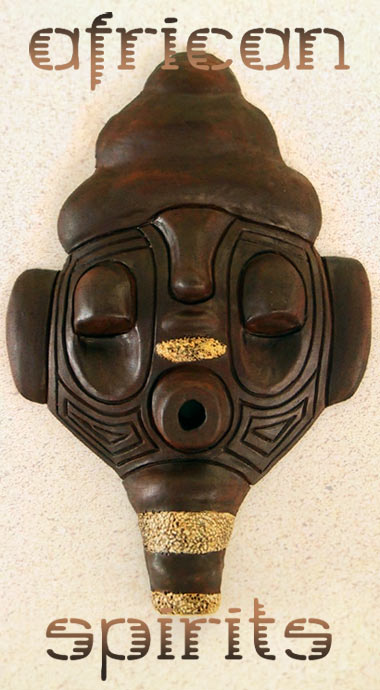
FS Vuvuzela
by kix
OK. Here's "VUVUZELA" A typeface inspired by the continent of africa, but mainly by the WorldCup of soccer 2010 in South Africa! To catch on of the strongest associations for me relating to africa, i chose black and white stripes, maybe to remind of zebras or other animal patterns. But the effect also stands for the "swoosh" of a ball flyin by, for just the the "sporty" feel i wanted it to have. Enjoy it. There's an alternative "a" on "=" cheers kix
NIIICE! How about some more characters like some spooky faces instead of the special punctuations … just an idea.
Awesome work! Really well done. Great style!
Unique and usable. African and stencil. Excellent work.
The latest Kix masterpiece. Excellent work, kix! I don't know how you do this stuff!
184591734658/10 as usual.
Wow! I counted the height... it's 57 pixels high! (or something along those lines)
Yes, I cloned it. Don't ask how.
@xenophilius. Cloned? That's a bug. I've disabled all cloning until that's fixed. I see you deleted the clone. Thanks!
A superb, great font. Excellent job this one (which I'm jealous, of course). Congrats.
Wauw! What a simple yet dramatic effect. 10/10 + fave.
Very nice kix...cool sample too.
Of causeI'll spend some of it for working on this. And do some of those spooky masks, cause it's just a friggin good idea :)
Brilliant in its simplicity, smoothness & appearance.
Uppercase finished.
Brilliant. W, N & M are triumphs.
Do you think the thicker side of D & B should be switched, to be like the C,G,O,P,R etc ?
Congratulations! FontStruct Staff have deemed your FontStruction worthy of special mention. “Vuvuzela” is now a Top Pick.
-i knew, IF someone would ask that question, it would be you :)
Naturally, i already thought about it and it's a questioncoming up within almost EVERY fontstruction i've done:
How much strictness and repetition does a/my font need?
And on the other hand: How much can a glyph be unique, but still fit to the set?
The characters you mentioned are like they are, but on purpose, to "ease" the look a little bit.
This one is so exquisitely beautiful. The propitious fusions of so many styles (light extended slab serif, as in American Typewriter~>super ellipsoid sans, like Apex New~>stencil & african!) is a total success. The superb and playful african effect is achieved totally through inventive serif surgery. So deftly controlled and cool! The “serif surgery” is itself a natural extension of the stencil look, which itself can be extrapolated from the opposition of serif and sans styles, leading right back to the serif surgery and completely the conceptual loop. An incredibly tight, deliberate, utterly unique yet seemingly inevitable result. Timeless/10!
Your previous work in mashing up contrasting styles has been taken to a new level.
Get well, soon, brother Kix!
Comment by William Leverette (will.i.ૐ) 2nd march 2011
what the meaning of vuvuzela?
Comment by Adien Gunarta (Adien Gunarta) 2nd march 2011
@Adien: It was a really irritating instrument used during the World Cup. It's basically a very long horn that is multicolored and makes a lot of very obnoxious sound.
Comment by Logan Thomason (xenophilius) 9th march 2011
What grid size is this?
Comment by BanjoZebra 14th march 2011
Congratulations! FontStruct Staff have deemed your FontStruction worthy of special mention. “Vuvuzela” is now a current Featured FontStruction.
Comment by Rob Meek (meek) 14th march 2011
@BZ: Oh, something like A BILLION!
BTW, congrats on the FF
Comment by Logan Thomason (xenophilius) 15th march 2011
Thank you all so much especially the FF :)
It's finally done. I cleaned out some fleas, optimised the letter space and... added NUMERALS!
@tylo:
Sorry, but i don't think there will be creepy masks, it just so big right now...
@banjozebra:
Gridsize is 78 x 72 :/
@xeno:
thanks for answering questions :)
@adien:
google rocks :)
Comment by kix 17th march 2011
I want to clone this baby.
The s, the M,, the g, and the 1 are the only characters that I don't love.
OMG!!!!!!!!!!!!!!!!!!!!!!!!!! The most beautiful and amazing font on fontstruct. Every glyph has such a tribal african feel and yet such whimsy. infinity+1 out of 10!!!!!
Another beautiful and well done style. Lovely.
You make a lot of nice fonts.